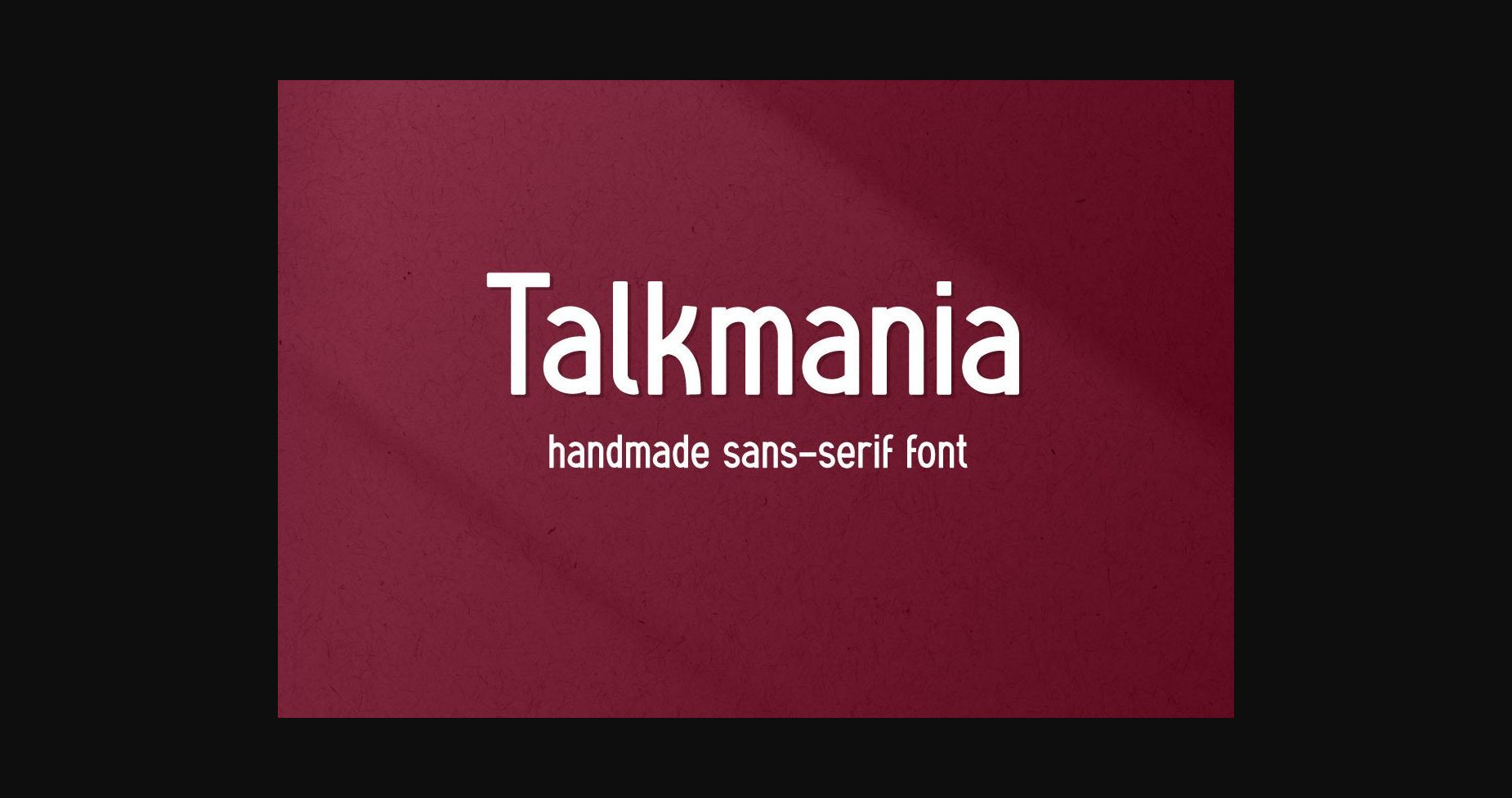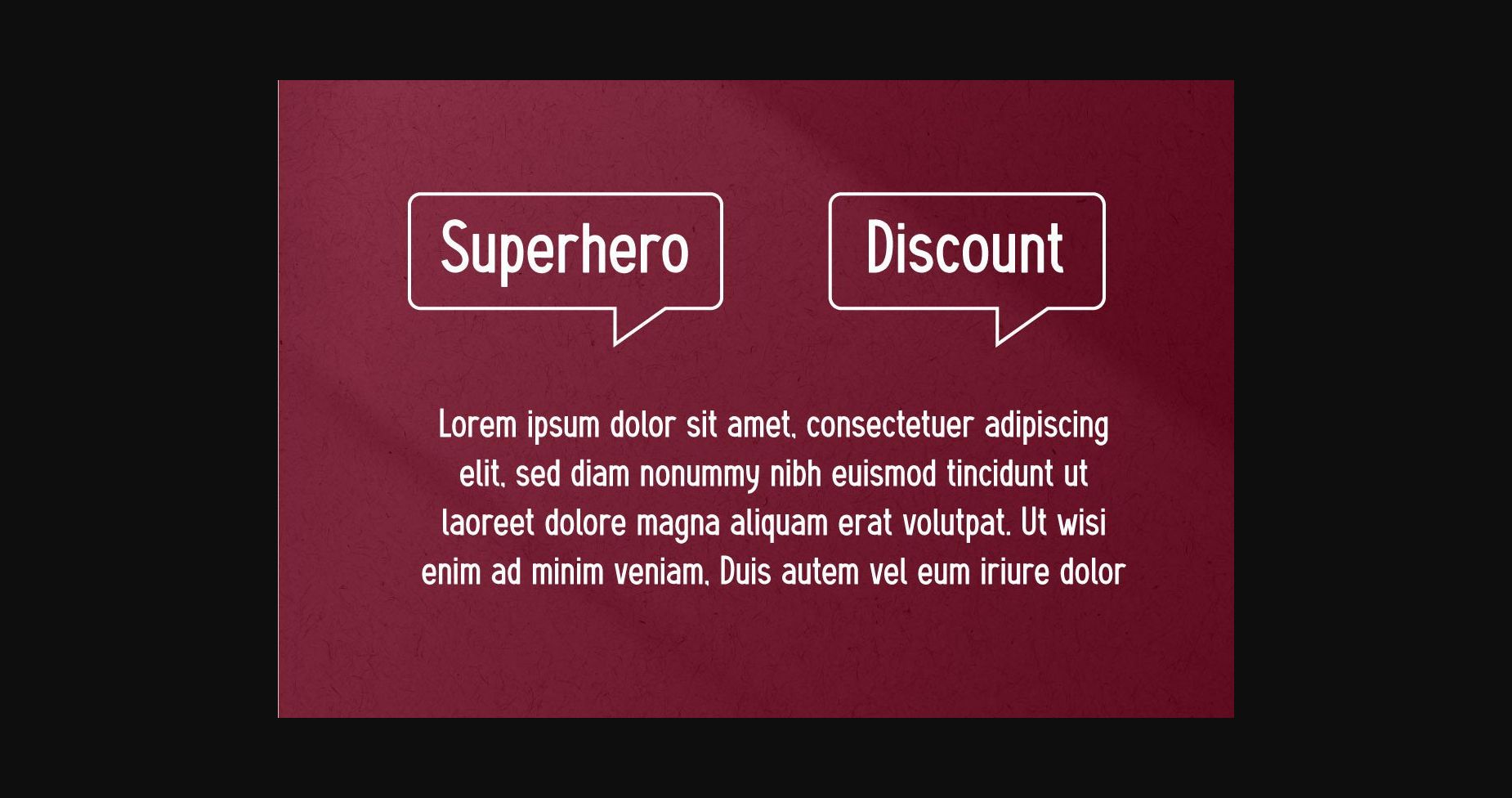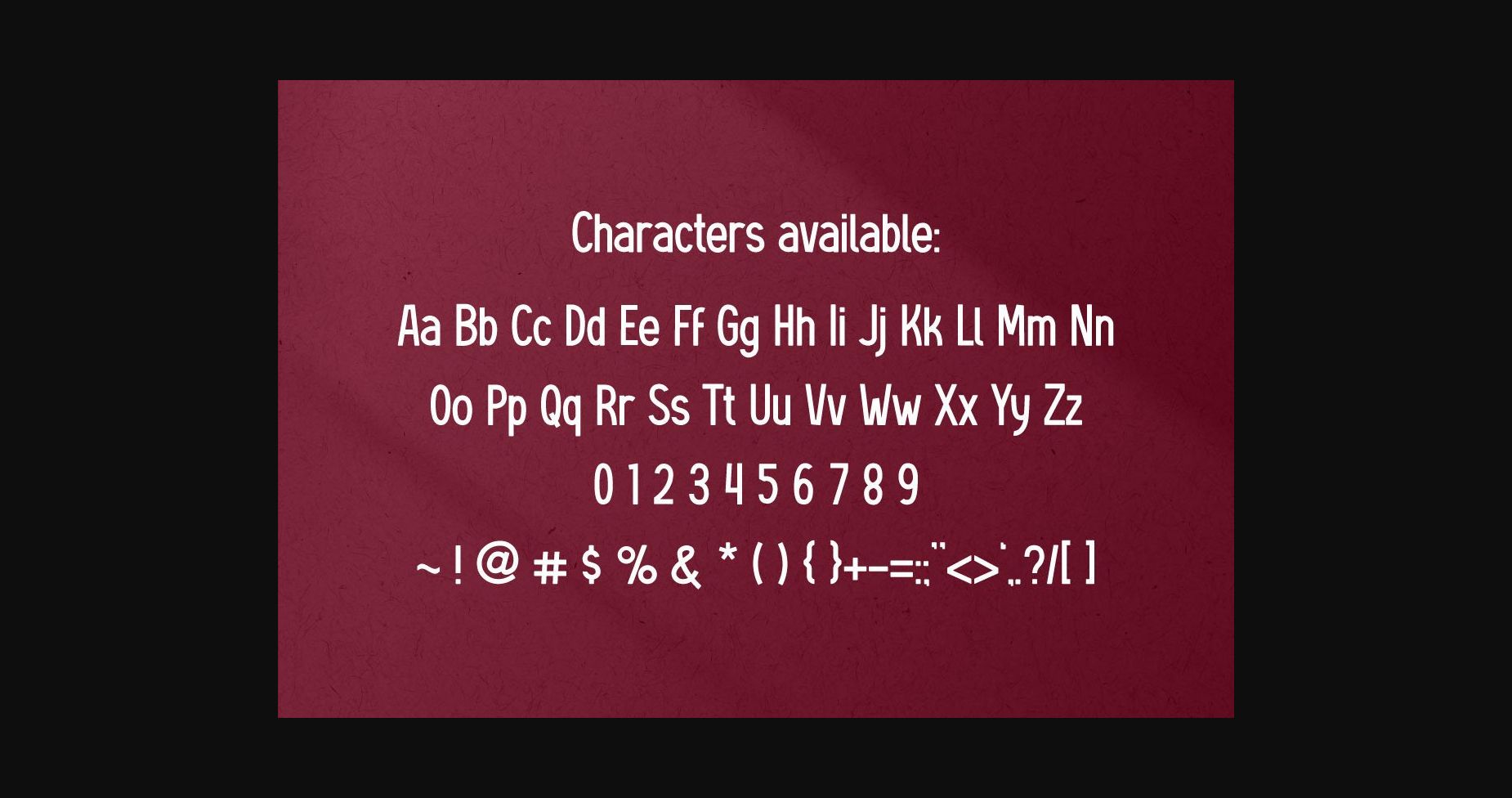
About Talkmania Font
A handmade sans-serif font, that is TALKMANIA.
Bold, and eye-catching in one package, Talkmania suit perfectly for Menu book, children’s book, comic, kindergarten, toys, movie title, flyer, technology, poster, book cover, title, headline, logo, magazine, banner, or even large-scale artwork.